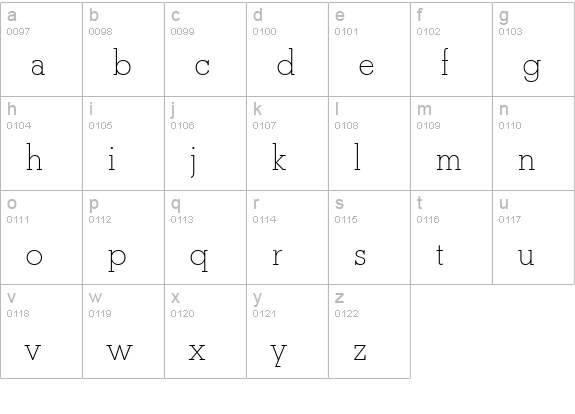
Boston-Light-Regular is a refined, elegant variant in the Boston typeface family \xE2\x80\x94 well suited to elegant body text, refined sub-headings, and luxury branding.
Boston Light Regular is a versatile and modern font that combines classic elegance with a contemporary twist. Its clean lines and balanced proportions make it perfect for a wide range of design projects, from branding to editorial design. The simplicity of this font allows it to be easily readable in both print and digital formats, making it a great choice for any project. Best of all, Boston Light Regular is available for free download at FontsMarket.com. This means that you can access this high-quality font without any cost, allowing you to elevate your designs without breaking the bank. Whether you're a seasoned designer or just starting out, Boston Light Regular is a valuable addition to your font library. Download it today and see the difference it can make in your creative projects.